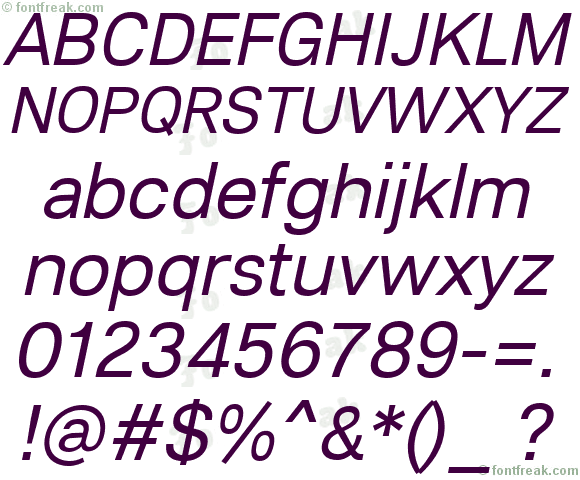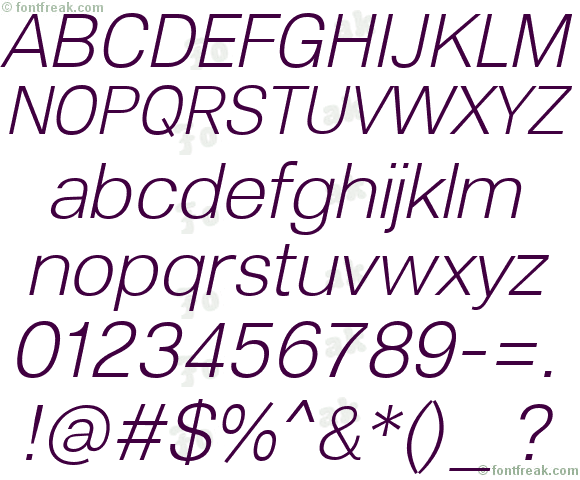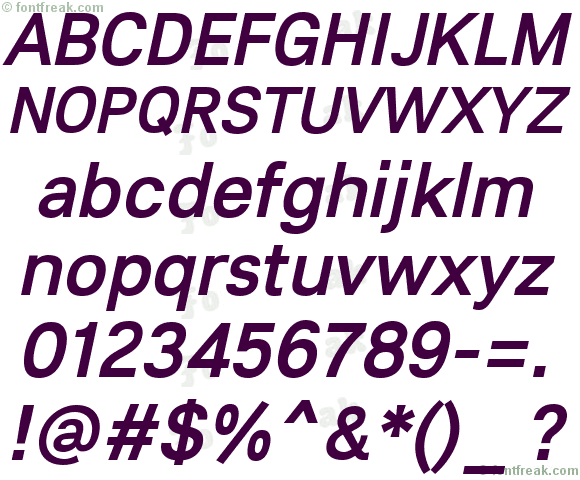
Lunchtype23 Italic
Lunchtype23 Medium Italic
Lunchtype23 Light Italic
About Lunchtype23 Italic
Lunchtype23 Italic is a striking display font designed by Michel Martinsson, embodying a unique blend of modern elegance and playful charm. Falling under the sans-serif category, this font features a medium weight that strikes a perfect balance between boldness and subtlety. The italic style adds a dynamic flair, making it ideal for various creative applications. With its smooth curves and gentle slants, Lunchtype23 Italic exhibits a moderate contrast in stroke weight, allowing for clear legibility while maintaining an artistic touch. The spacing is well-considered, ensuring that each letter breathes without compromising the overall cohesiveness of words.
This versatile font can be effectively used in wedding invitations, where its elegant style can enhance the romantic atmosphere. It also shines in restaurant menus, adding a touch of sophistication to dish descriptions while remaining easy to read. For movie posters, Lunchtype23 Italic’s eye-catching design can draw in audiences and create a sense of intrigue. Additionally, content creators will find it perfect for social media graphics, helping their posts stand out with a professional yet approachable look.
What sets Lunchtype23 Italic apart is its ability to combine modern aesthetics with practical functionality. Its visual charm, combined with its versatility, makes it a valuable addition to any designer's toolkit. For those interested, the Lunchtype23 Italic font free download is an opportunity not to be missed.